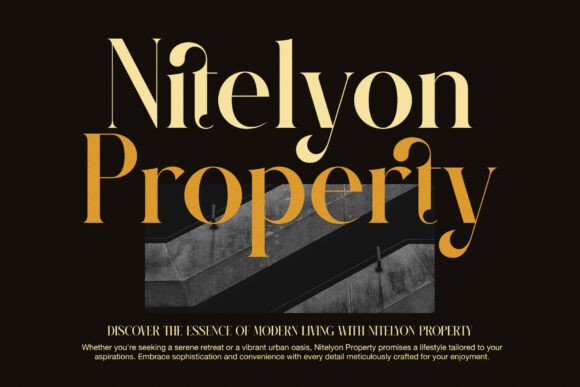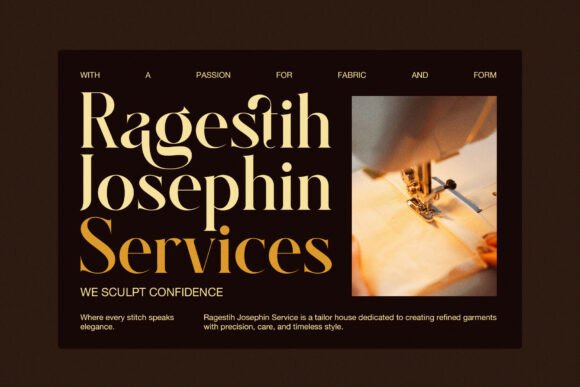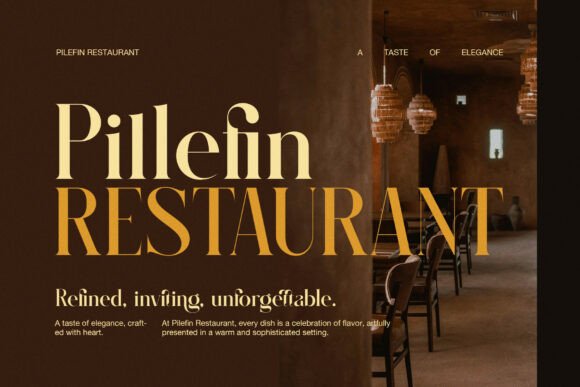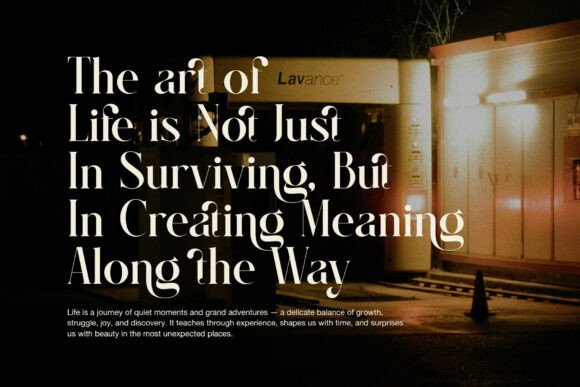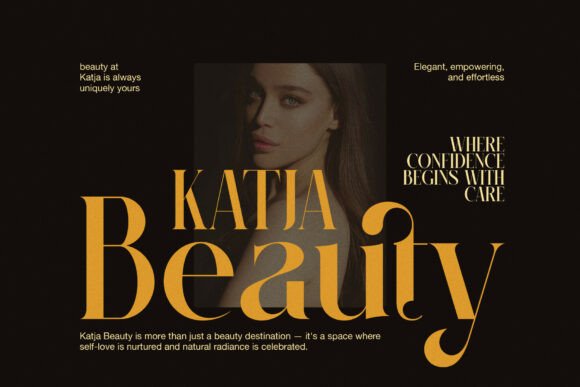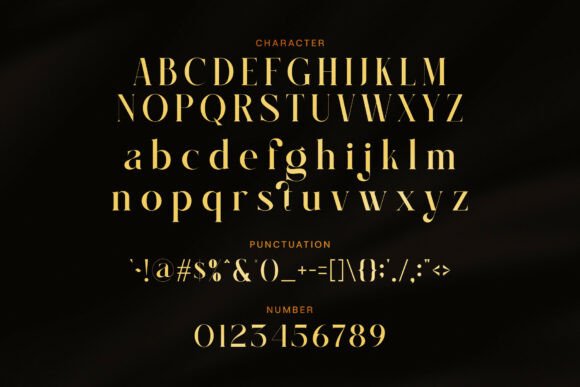
The Moment You Know You’ve Found the Perfect Font
Have you ever stared at a blank design canvas, desperately searching for the perfect font to bring your vision to life? You know, that moment when everything else seems to fall into place, and you can finally see your design take shape? That’s exactly what happened when I discovered the Gafilen Font.
This elegant serif font is more than just a pretty face – it’s a game-changer for modern designers. With its perfect blend of classic charm and clean lines, Gafilen Font is the ultimate tool for creating high-end branding, logos, and editorial content. Its versatility, readability, and compatibility with multiple languages make it an invaluable asset for designers of all levels.
Gafilen Font Key Features
- Character Set: The font includes a comprehensive character set, covering Latin, Cyrillic, and Greek alphabets, as well as a range of punctuation marks and symbols.
- Unique Characteristics: The font features a distinctive, modern design with a unique blend of geometric and organic shapes, making it ideal for use in branding, advertising, and editorial design.
- Font Weight and Style: Gafilen Font is available in 7 different font weights, ranging from Light to Black, and includes a range of styles, including Regular, Italic, Bold, and Bold Italic.
- Unicode Support: The font includes comprehensive Unicode support, ensuring that it can display a wide range of languages and characters, including those from non-Latin scripts.
Gafilen Font Review
I recently had the chance to work with the Gafilen Font, and I wanted to share my honest thoughts on it.
- The Gafilen Font has a unique and stylish feel to it, making it perfect for creative projects that require a touch of elegance.
- The font is highly legible, even at smaller sizes, making it suitable for body text and headings.
- The font’s high x-height makes it easy to read, especially for people with visual impairments.
- It’s a great choice for designers who want to add a bit of sophistication to their designs without going overboard.
- The font may not be the best choice for projects that require a bold, attention-grabbing font. Its elegant feel can make it come across as too subtle.
- It’s not a good choice for projects that require a large font size, as it can become too ornate and overwhelming.
- The font may not be suitable for projects that require a sans-serif font, as it has a more traditional feel to it.
Overall, I think the Gafilen Font is a great choice for designers who want to add a touch of elegance to their projects. While it may have some limitations, its unique feel and high legibility make it a solid choice for a variety of design applications.
The Gafilen font is ideal for creating modern and minimalist designs, such as:
1. Branding and logos.
2. Digital marketing materials, such as social media graphics and email templates.
3. Print materials, such as business cards and brochures.
To get the most out of the Gafilen font, experiment with different font sizes, colors, and combinations to create a unique and eye-catching design.